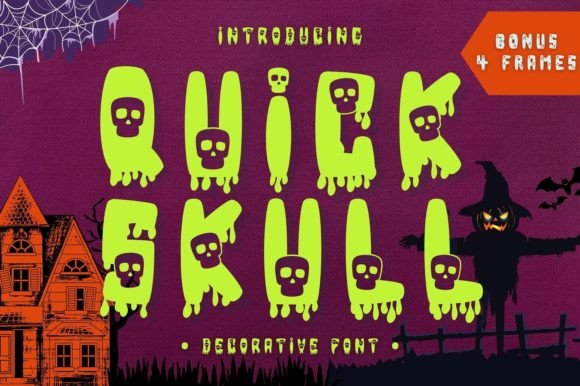
Get ready to unleash the spooky spirit of Halloween on all your design projects with Quick Skull Font! This wickedly delightful decorative font captures the essence of the festive season, making it the ideal choice for creating unforgettable Halloween posters, decorations, and more.
Crafted by the ingenious minds at Brown Cupple Fonts, Quick Skull is a spirited font that exudes playfulness and authenticity. Its unique design brings a touch of macabre charm to any project, ensuring your creations stand out from the crowd.
Whether you're a seasoned designer or simply seeking to add a touch of Halloween flair to your projects, Quick Skull Font is the perfect choice. Its versatility extends to a wide range of applications, including:
- Spine-tingling Halloween posters
- Enchanting blog posts that cast a spell
- Eye-catching logos and branding
- Bewitching ads that will haunt your audience
- Invitations and greeting cards that send shivers down the spine
- Planners and photo albums that capture the haunting memories
- Spooky decorations that create a chilling ambiance
Indulge in the creative possibilities of Quick Skull Font and let your imagination run wild. Add it to your design arsenal today and embrace the enchantment of Halloween!